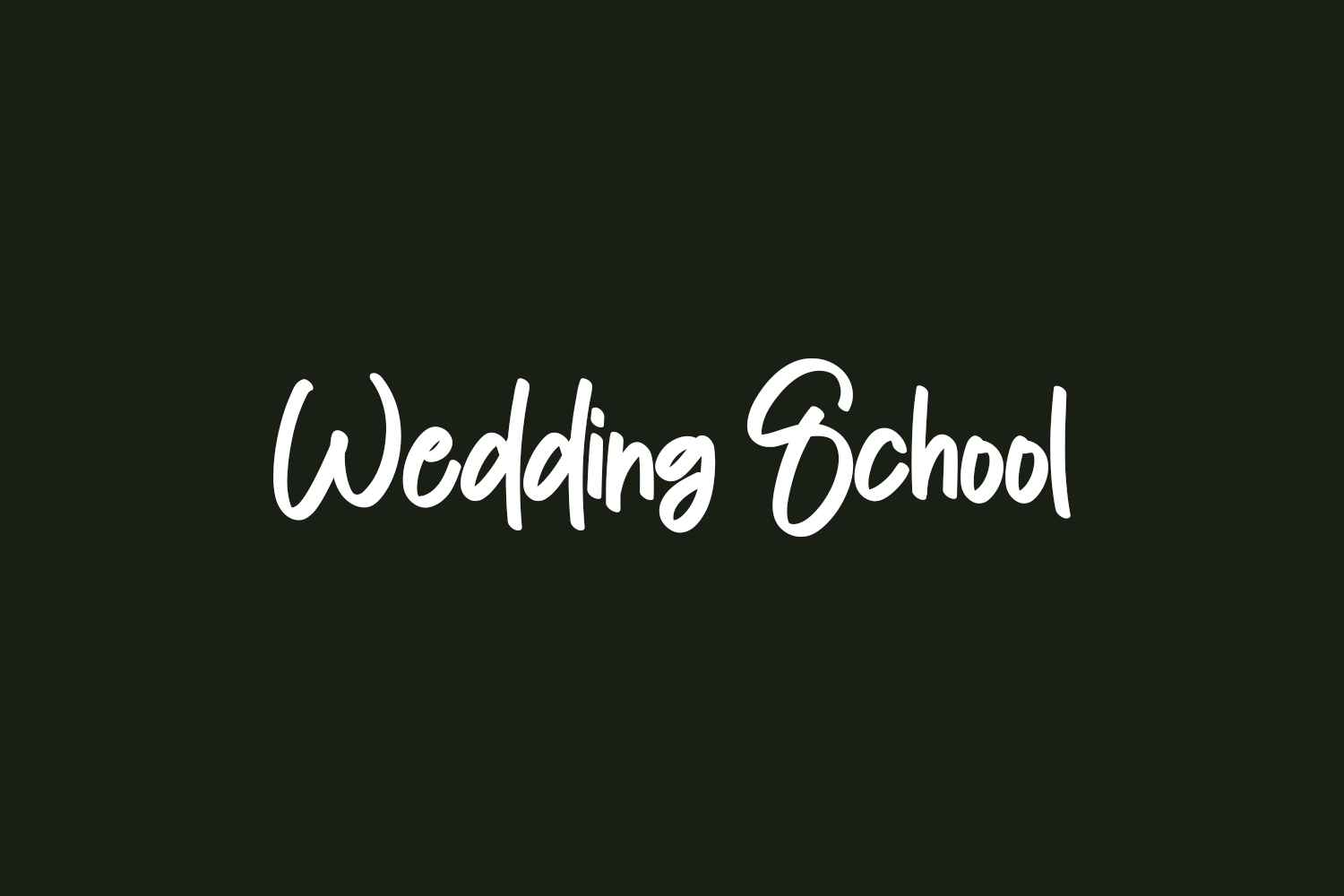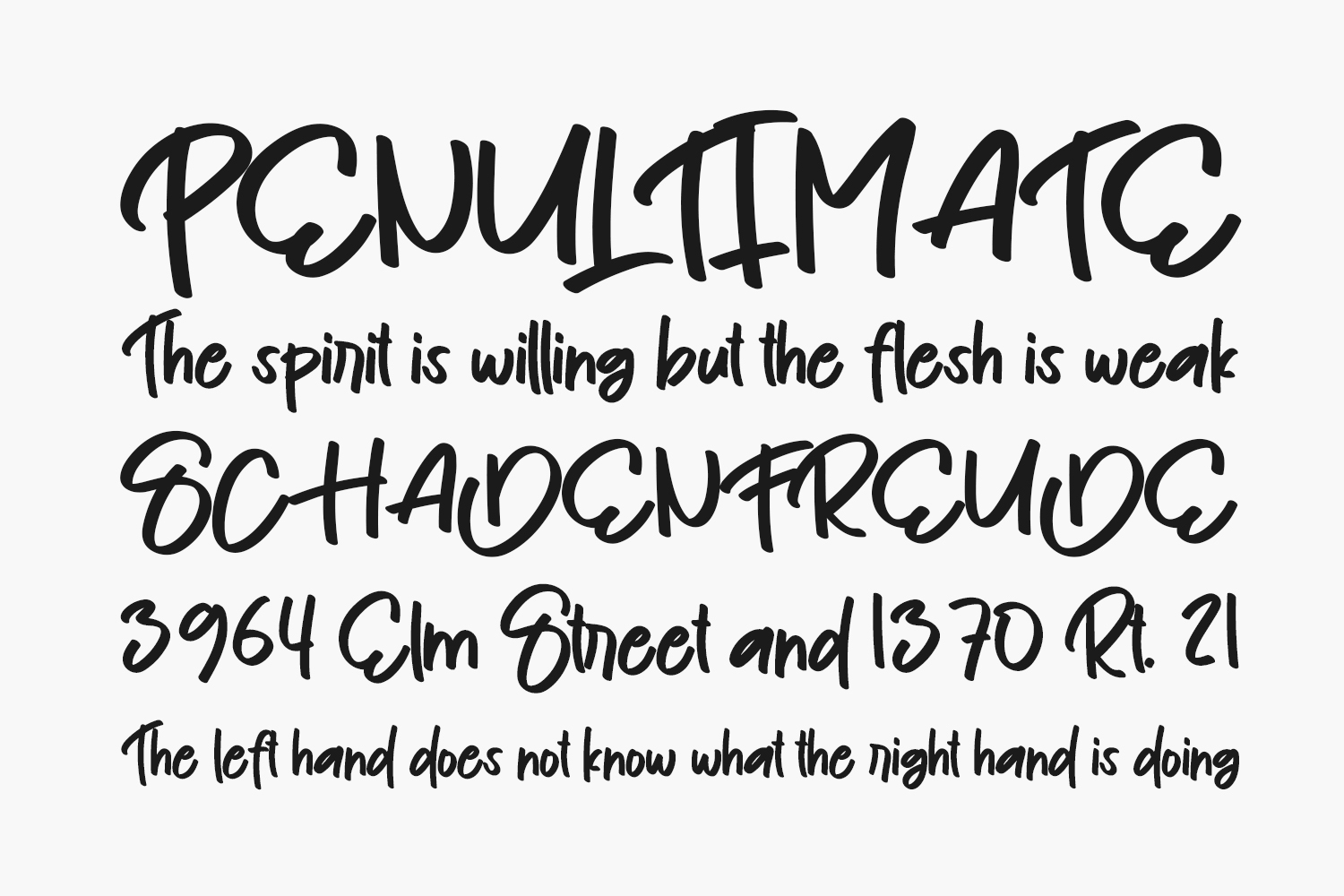
Wedding School Free Font is a simple and flowing handwritten font. This adaptable font will look great on a variety of design ideas. It will add a fun and friendly touch to each of your projects. Wedding School Free Font was designed by Lontong Lodeh and is free for personal use only. Please purchase the full version for commercial use.